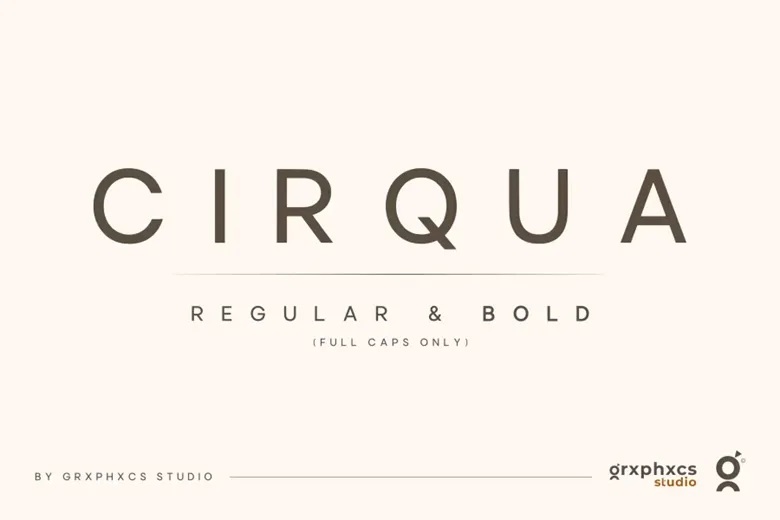
Cirqua Font
Cirqua is a modern sans serif typeface with neat lines and angular edges. Attention to detail has made it unique as it includes a number of alternate characters along with eye-catching ligatures to make your writing elegant.
Cirqua Sans Serif Font